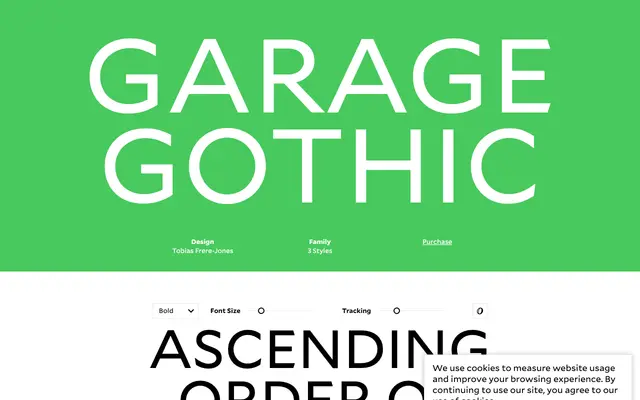
Garage Gothic
Frere-Jones · Tobias Frere-Jones
A three-weight display family by Tobias Frere-Jones, derived from the crude numerical letterforms found on discarded parking garage tickets in 1980s Brooklyn.
Frere-Jones collected parking garage tickets intending to use them in collages, drawn to the matter-of-fact geometry of the printed numbers and the blurring caused by rapid mechanical printing. The truncated centres of M and W recall monospaced mechanical type, while rounded corners and joins make ink spread a design feature rather than a flaw. The family spans Regular, Bold and Black, with OpenType features for uppercase punctuation and a raised colon referencing the ticket-printing context.
Drawn from the crude, utilitarian letterforms of parking garage tickets, Garage Gothic sits firmly in the display category with its coarse geometry, rounded corners and truncated M and W forms derived from mechanical ephemeral printing traditions.